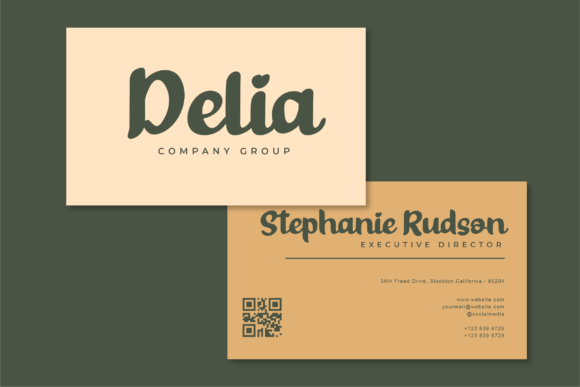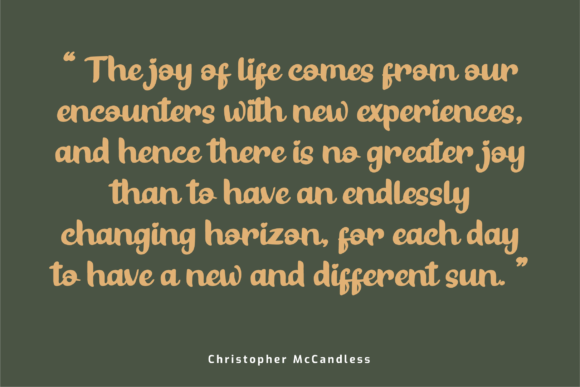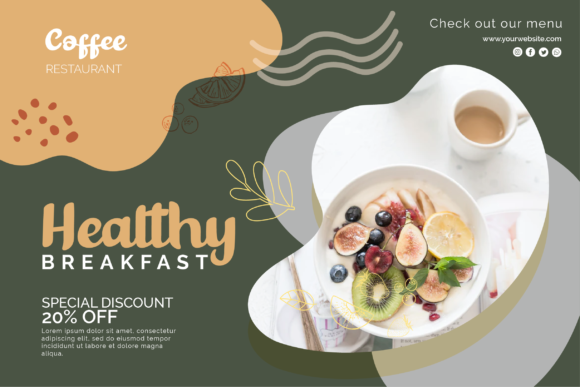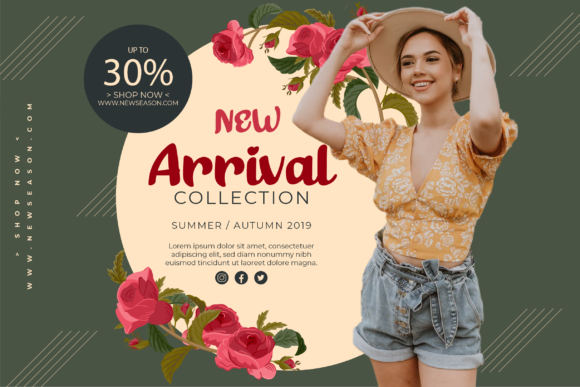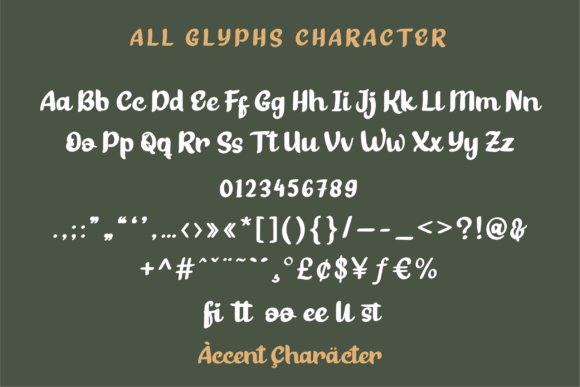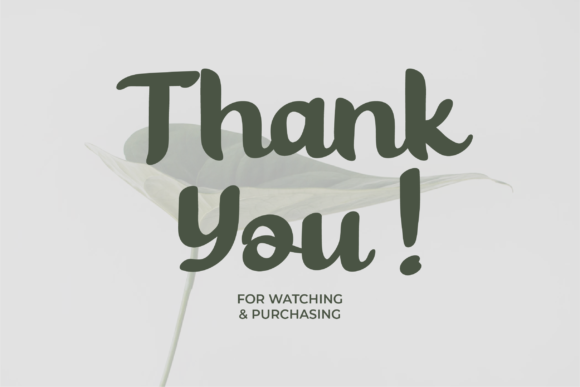
Bester Keefi Font
About Bester Keefi Font
Bester Keefi results out of a stunning pairing of a brush pen and pencil that makes it look incredibly endearing and authentic. Use this gorgeous and unique handwritten font to bring any DIY project to life!